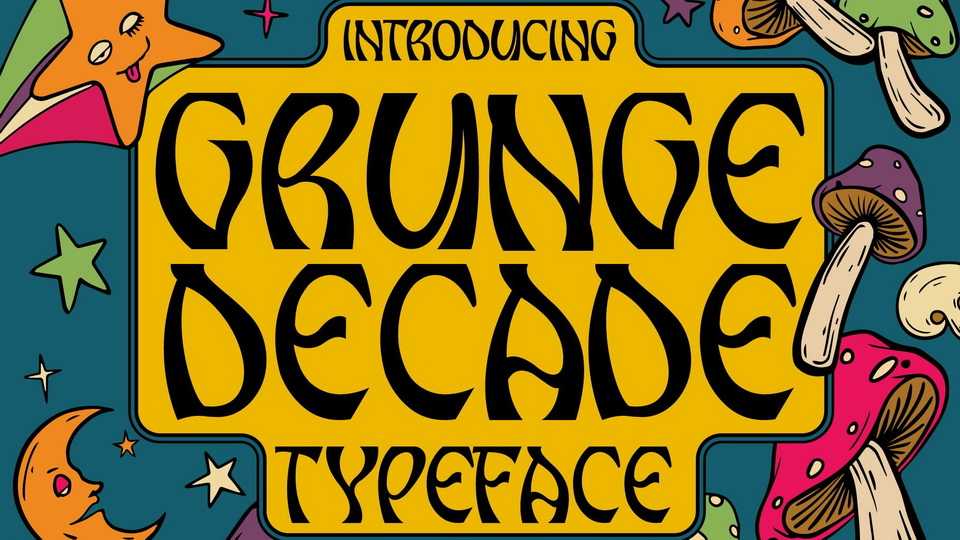
Download Grunge Decade font, a display typeface inspired by the design styles of the 80s. The style of Grunge Decade is funny, not serious but has aesthetic and unique value.